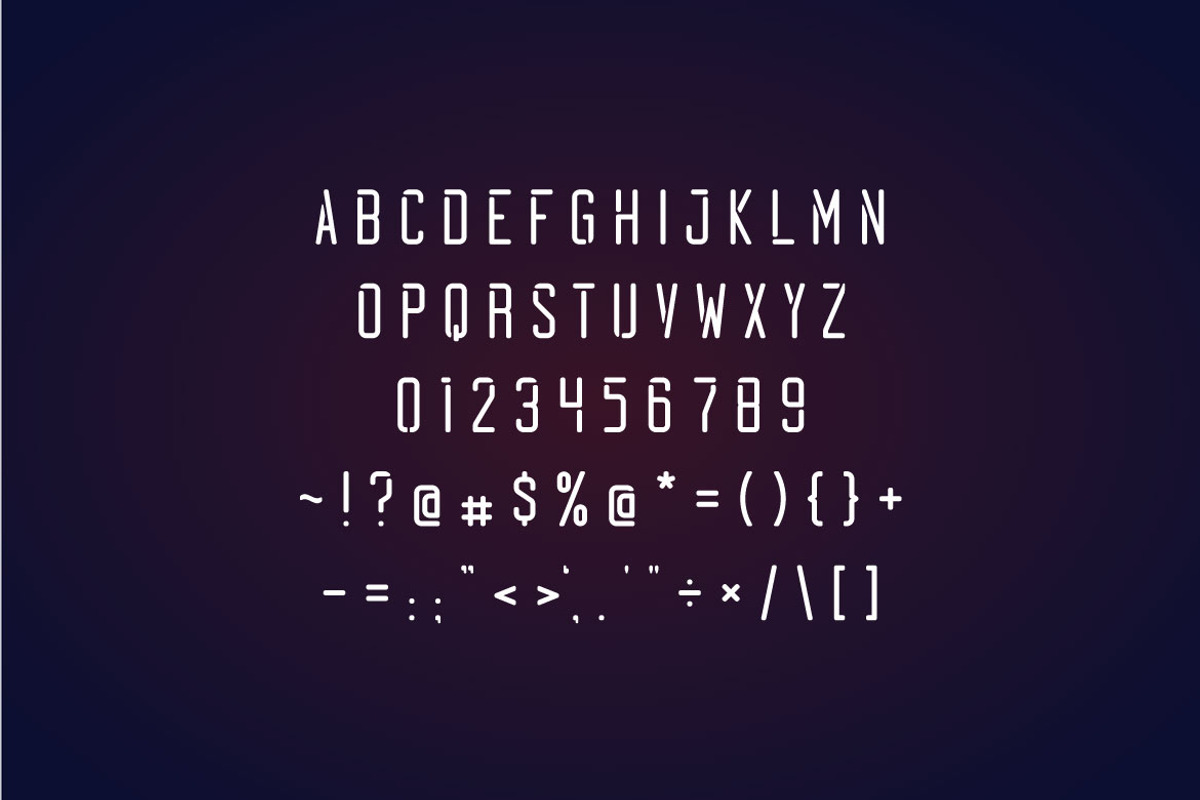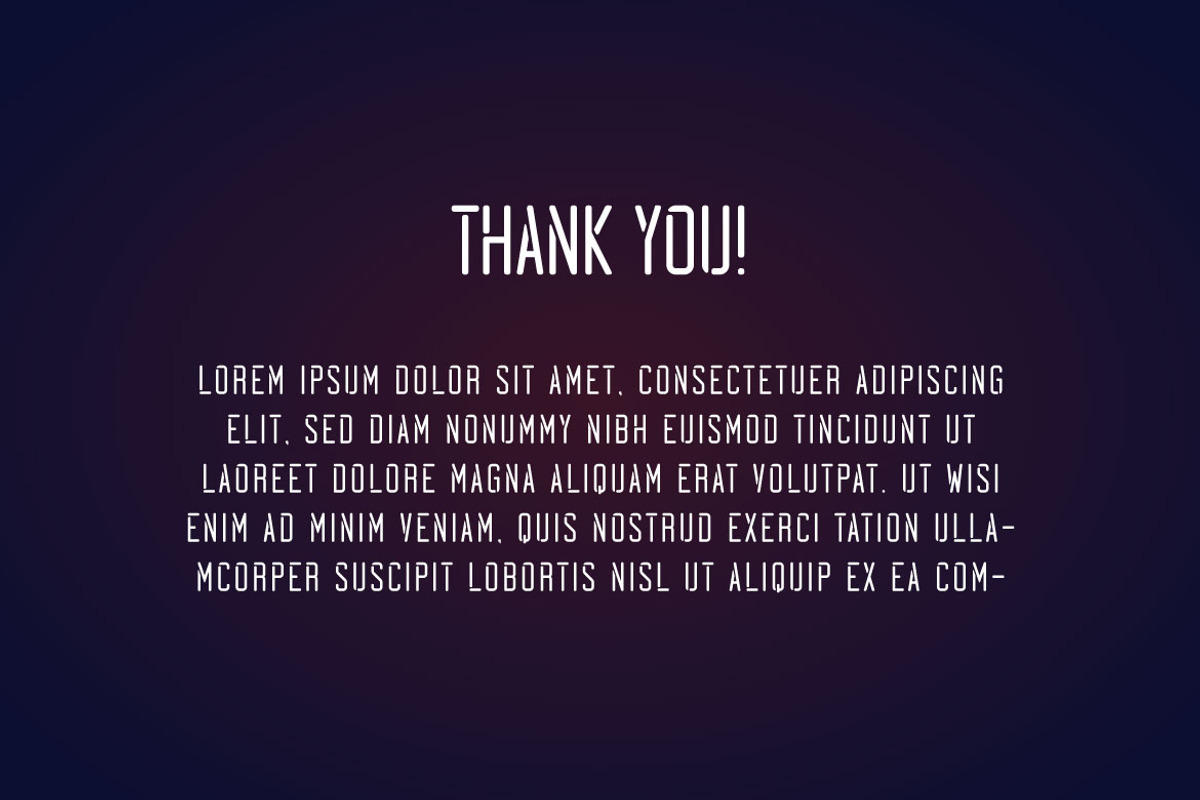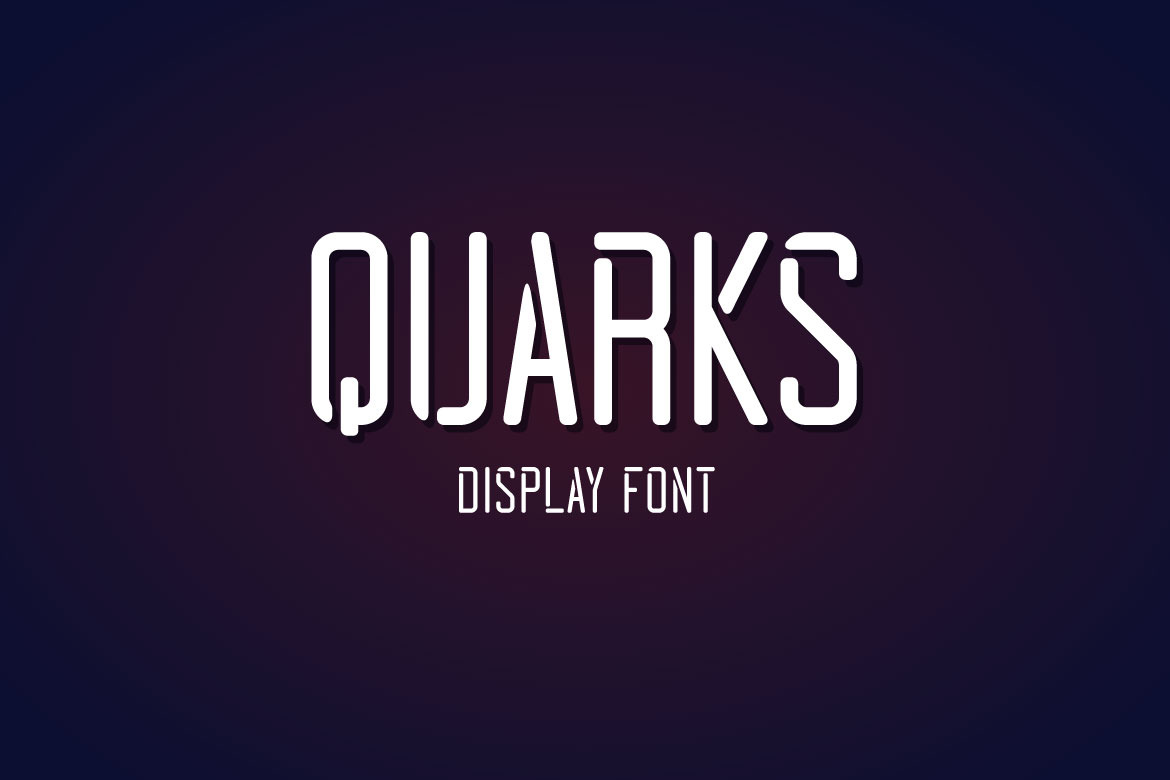
Quarks - Condensed Display Font
If you are looking for a modern and simple display font, meet QUARKS Quark is perfect for any works, such as your poster, card, book title, headline of news, banner, flyer, stationery and many more. It also can be used in Any scale work.